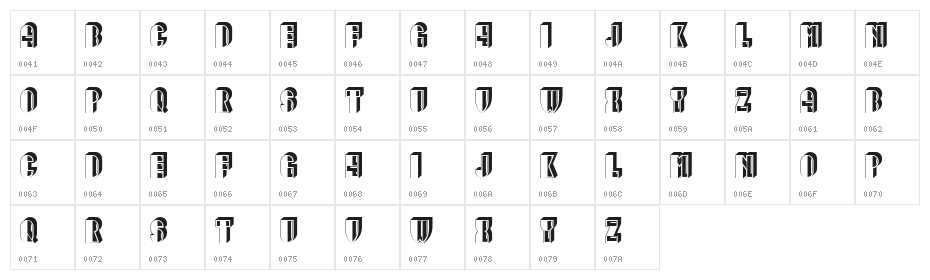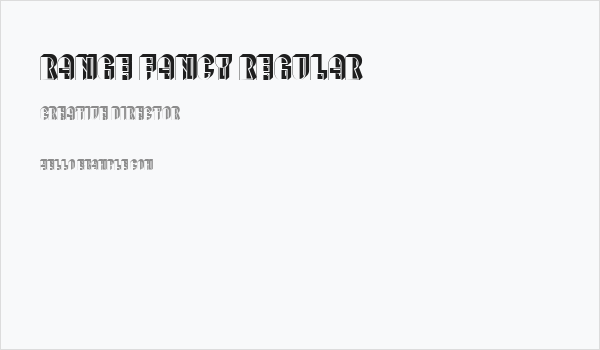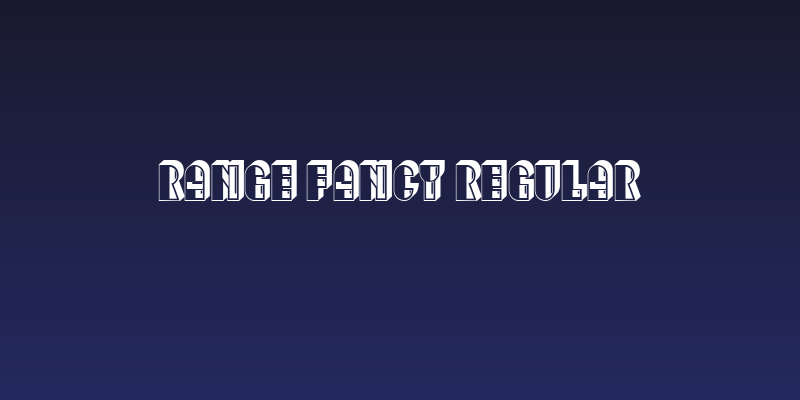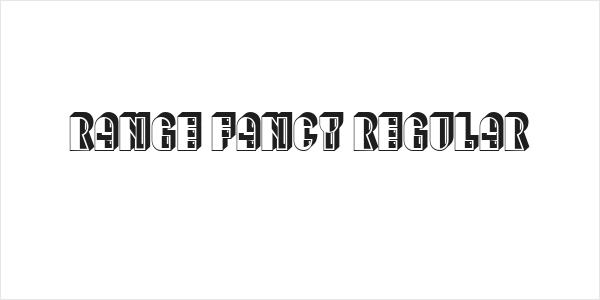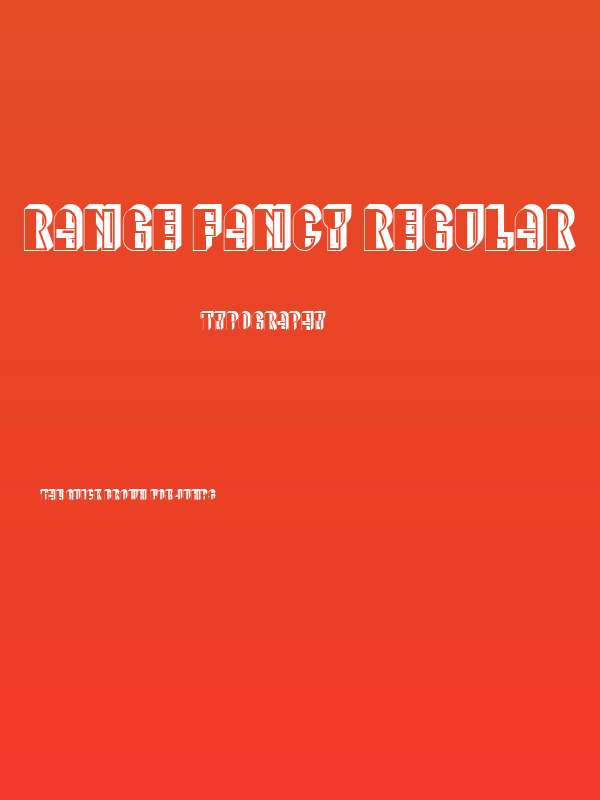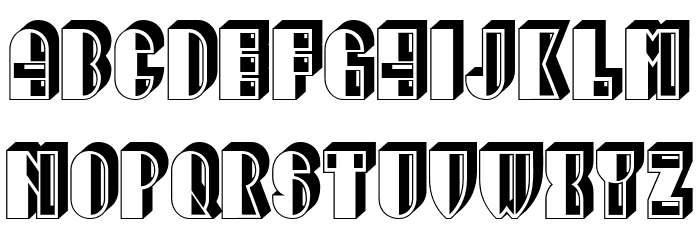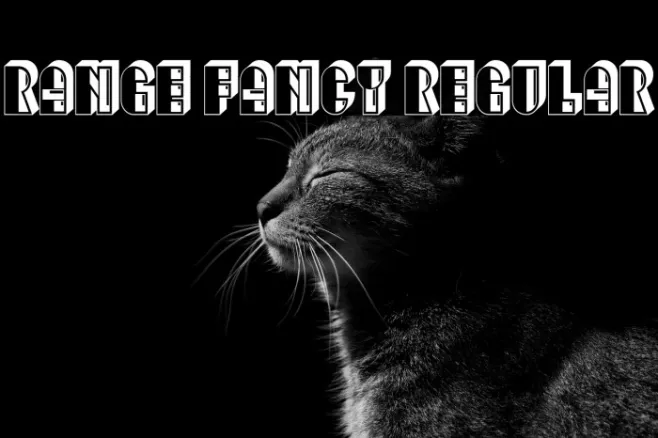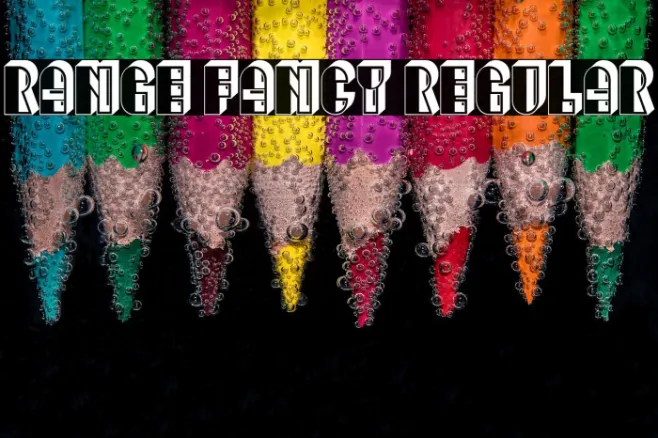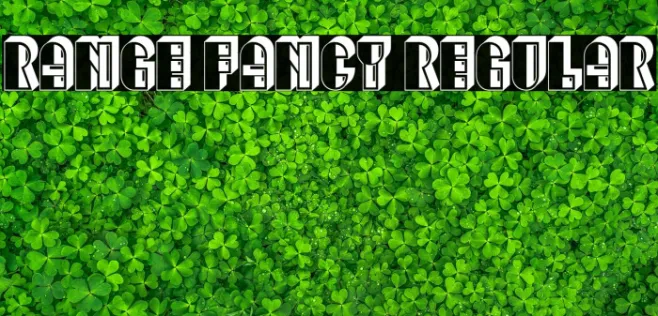
Range Fancy Regular Font
Range Fancy Regular Description
This font features a bold and striking design with a three-dimensional effect, characterized by thick, blocky letters that have a shadowed outline. The letters are uppercase and exhibit a strong geometric influence, with sharp angles and clean lines. The font's unique style is enhanced by the use of contrasting colors and shading, giving it a dynamic and eye-catching appearance. This makes it particularly suitable for projects that require a bold statement or a modern, edgy look. The font's design is consistent across all characters, maintaining a uniform appearance that adds to its visual impact.
| Proposed Projects | Ideal for posters, logos, headlines, and any design needing a bold, modern touch. |